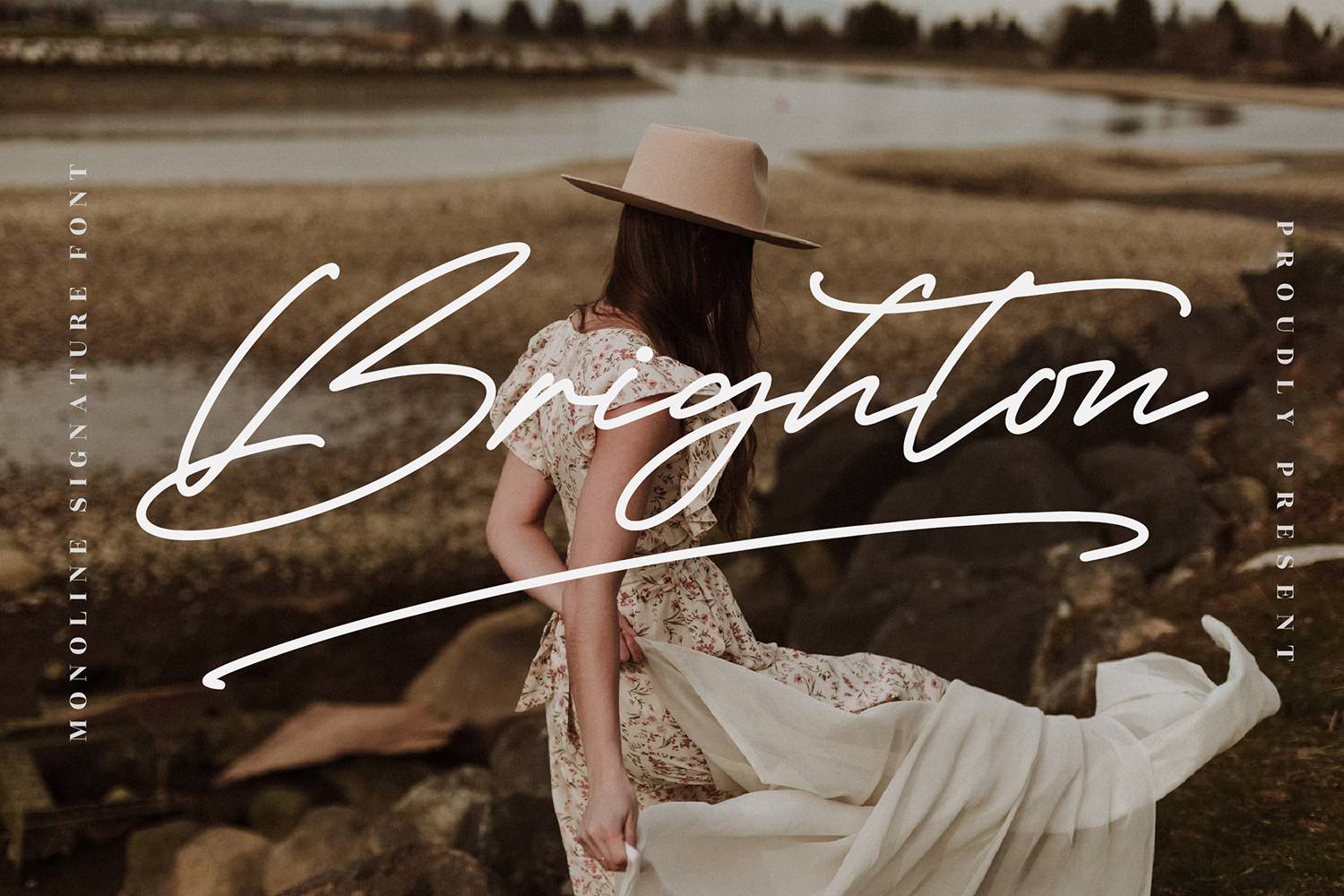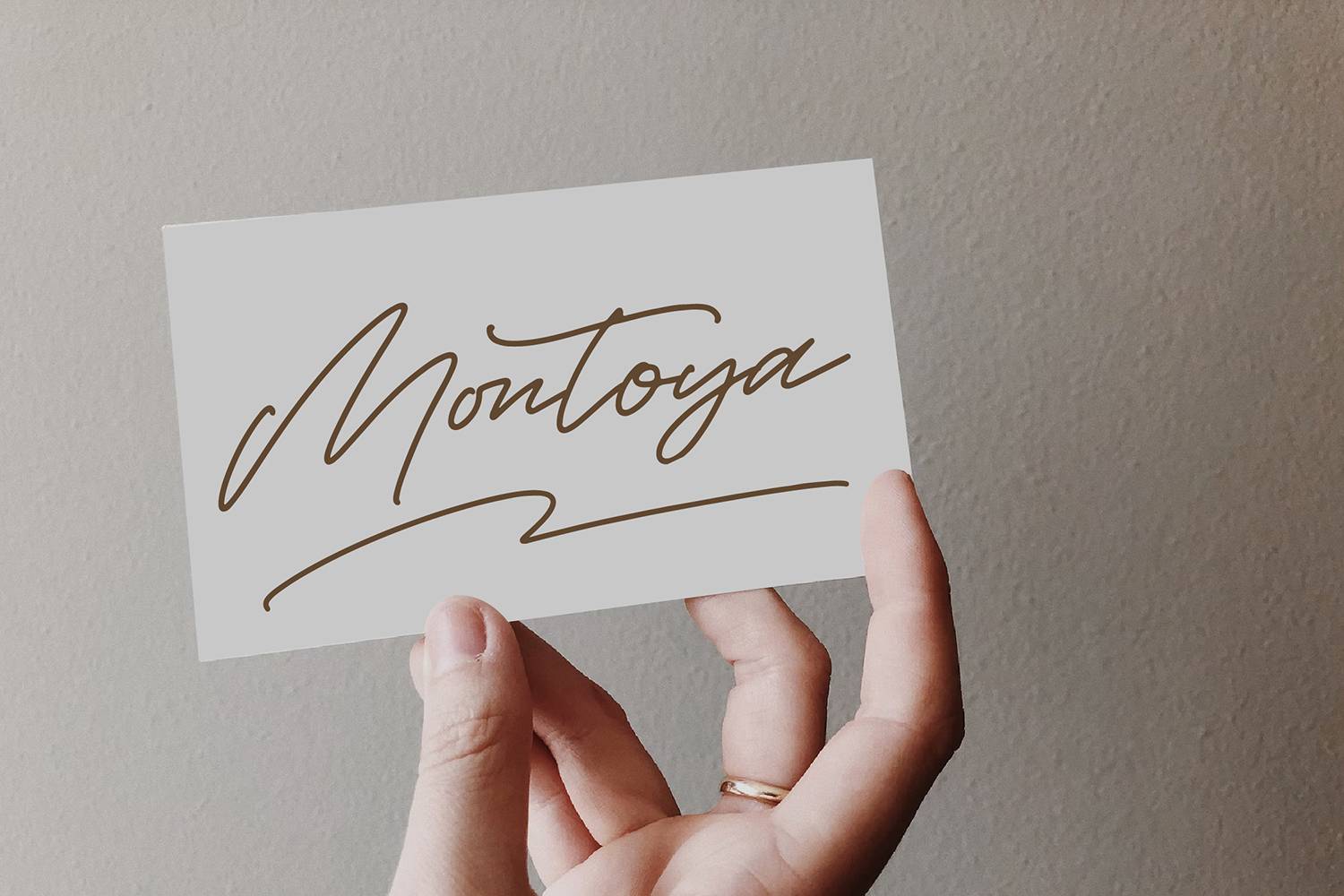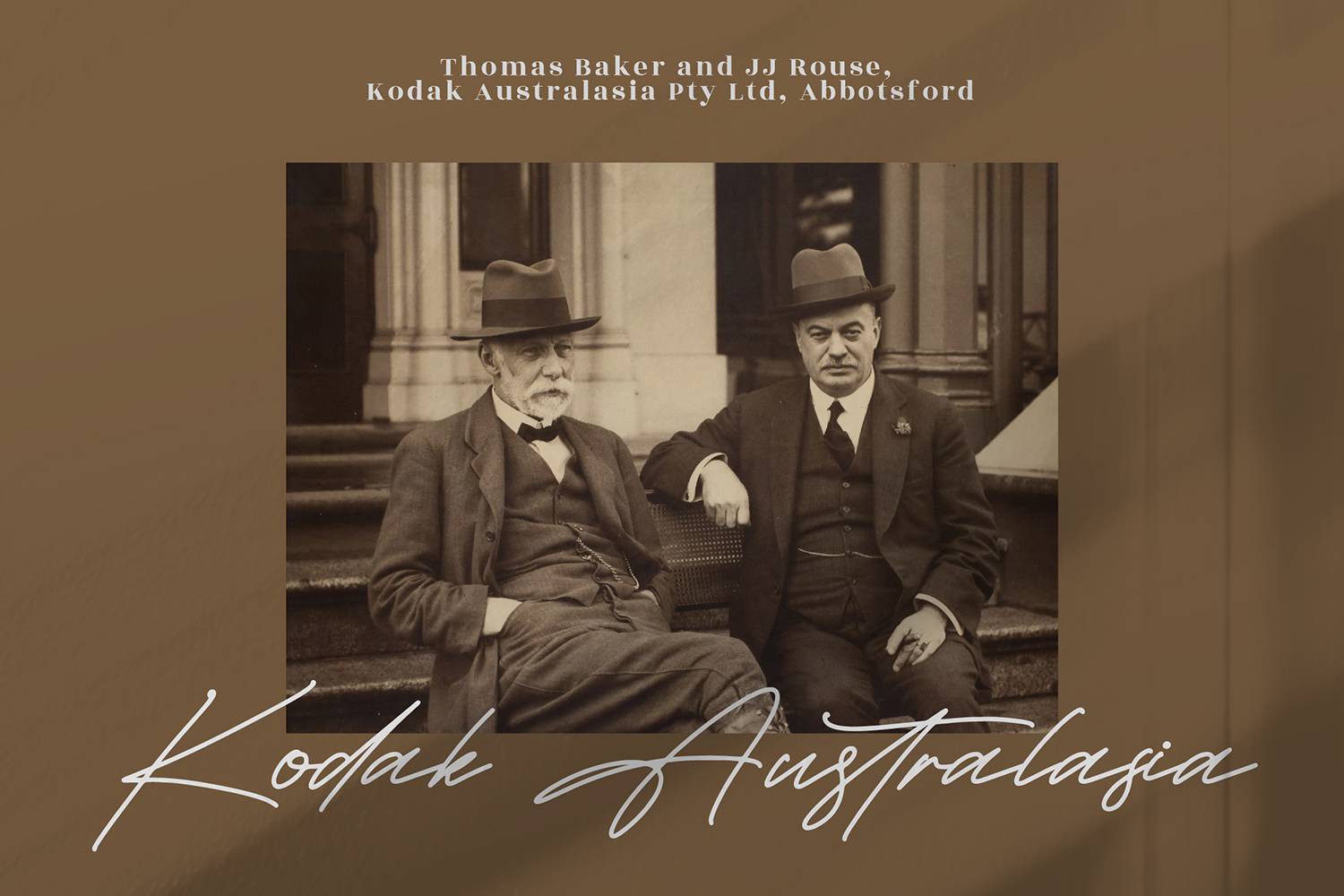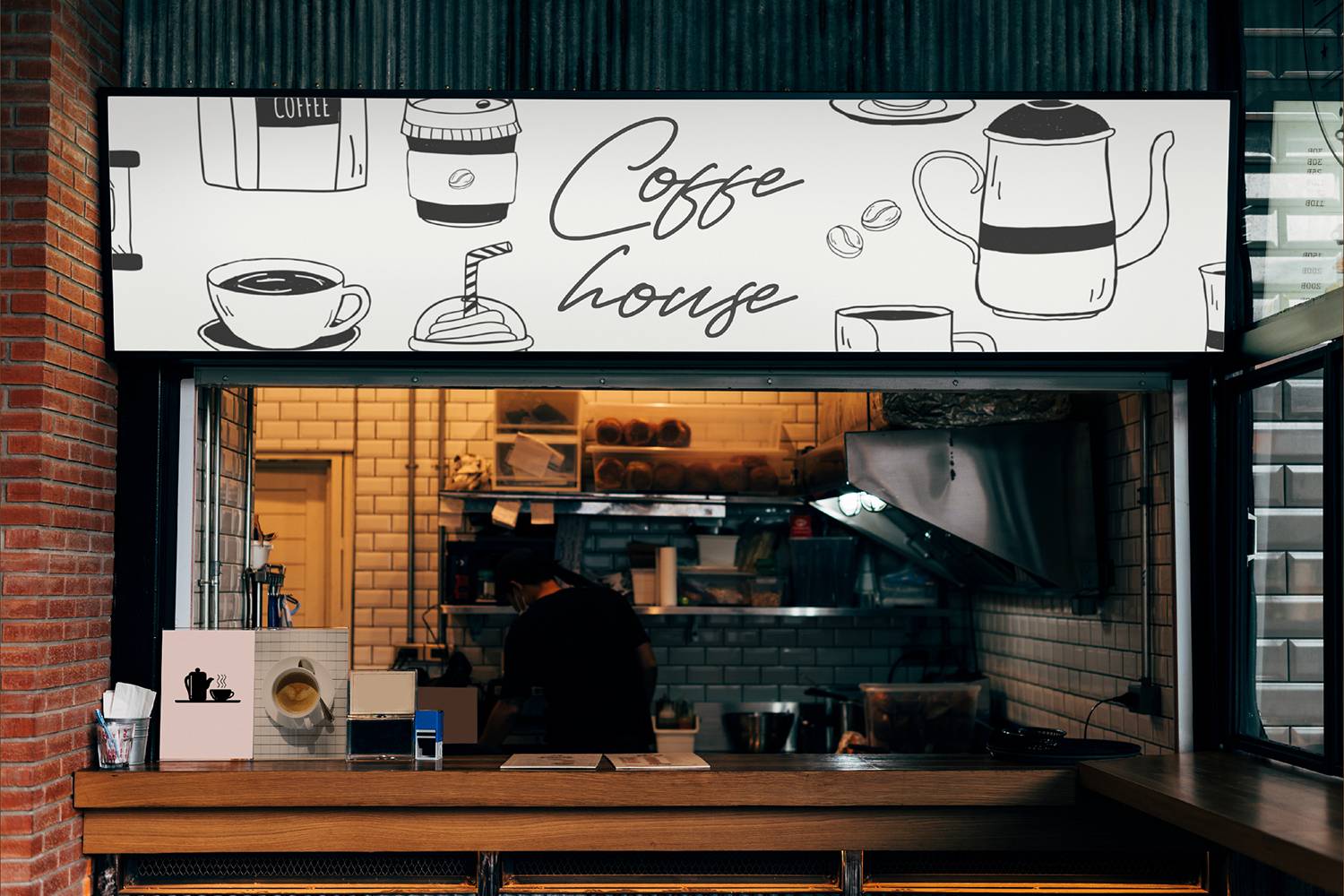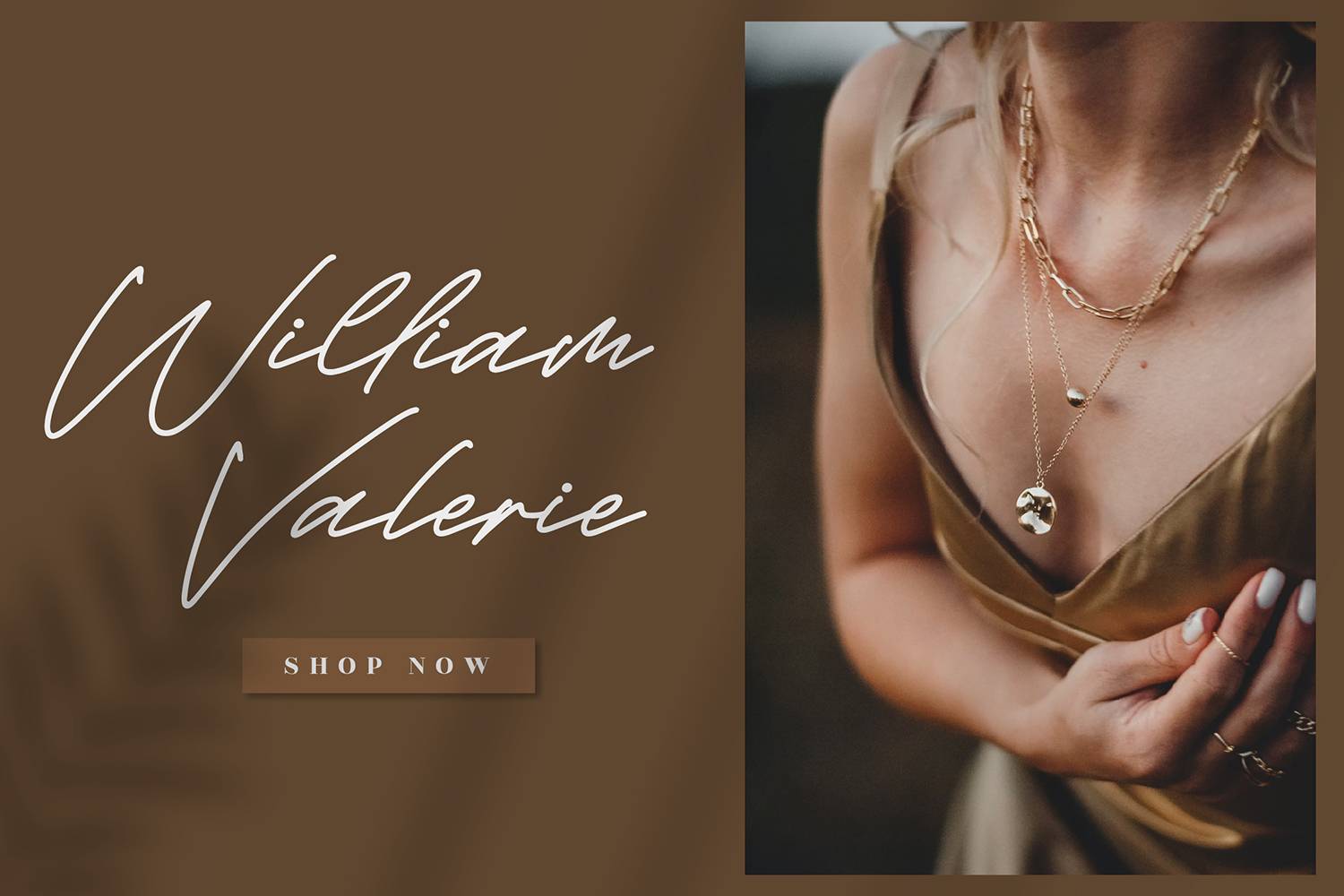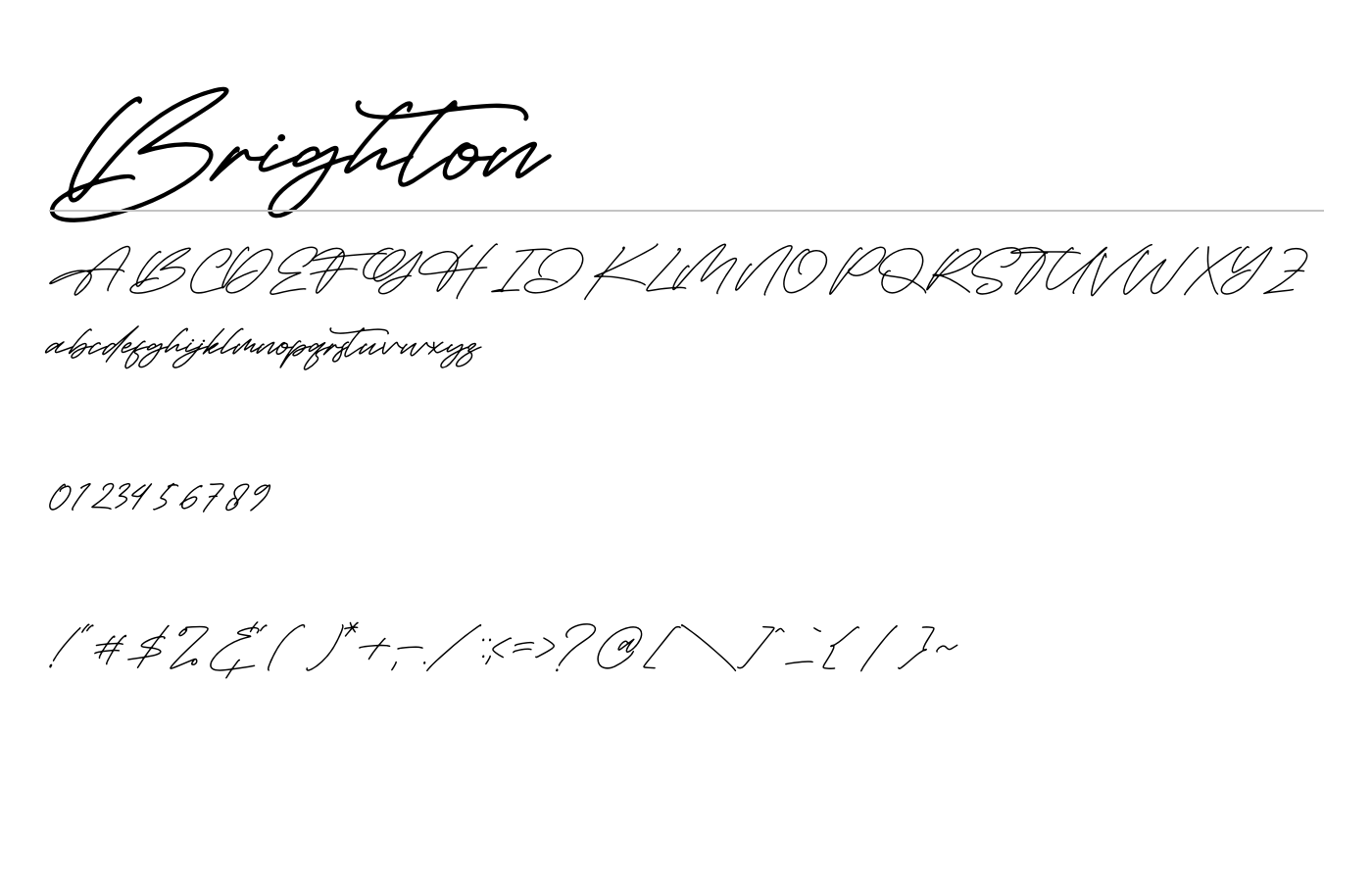
Brighton is a delicate, elegant script font with a flowing, handwritten style that exudes sophistication and charm. Its thin, graceful strokes and slightly varied letterforms create a natural, personal touch, making it ideal for luxury branding, invitations, and stylish logos where a refined yet approachable feel is desired. This font works best in large sizes for headlines or display purposes, where its fine detail and graceful movement can truly shine.
Brighton Font
About Brighton Font